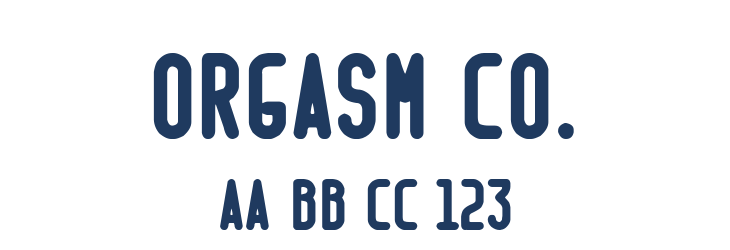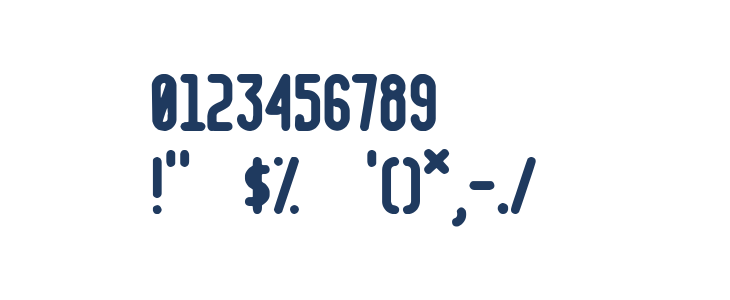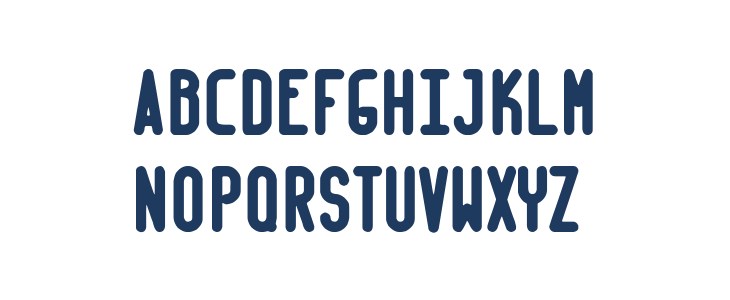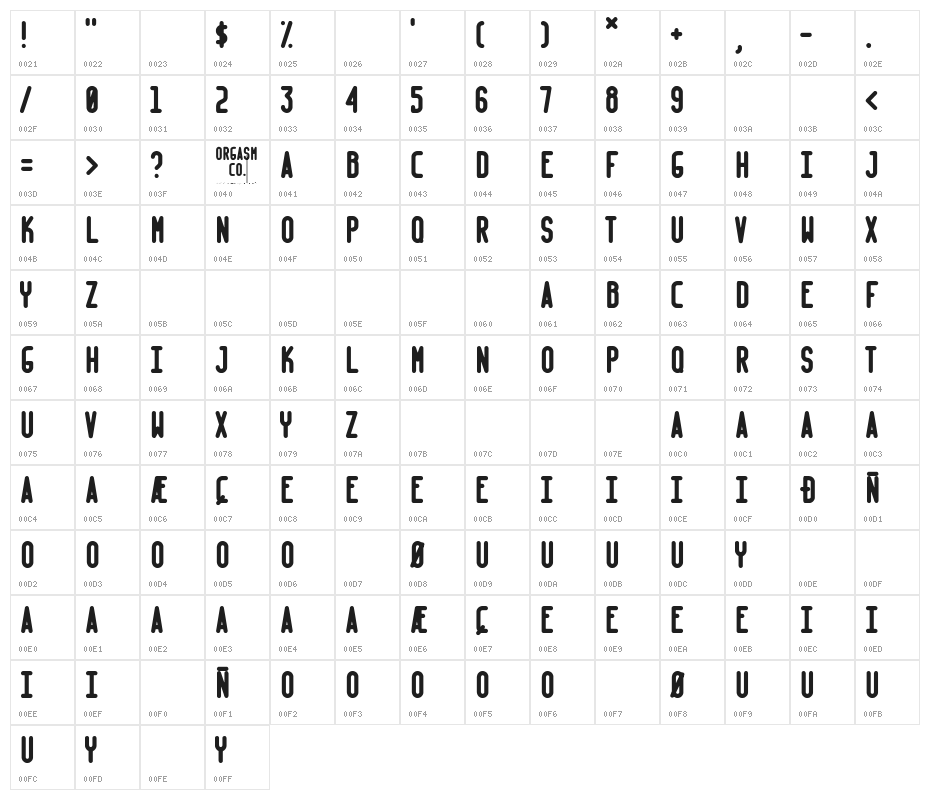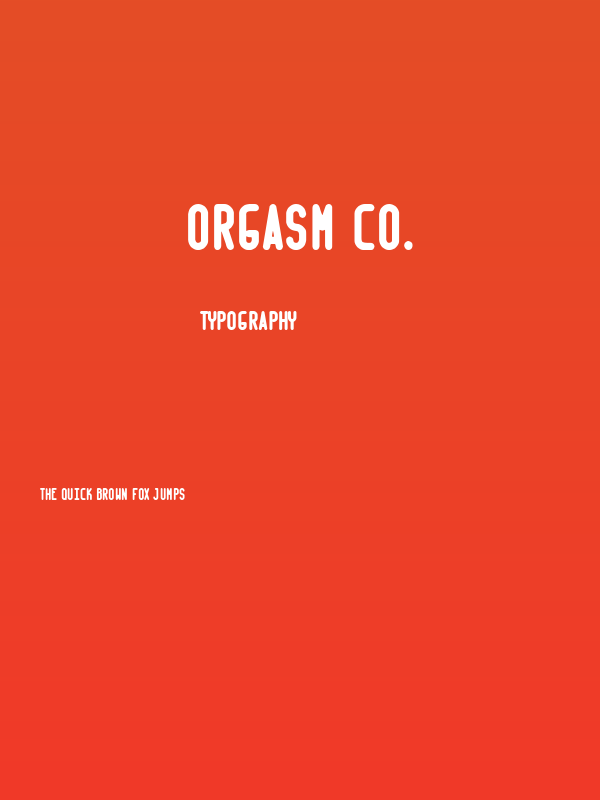
Orgasm Co. Font
Orgasm Co. Description
A rounded, bold sans-serif typeface with uniform stroke width, geometric shapes, and playful, approachable character forms. The letters have soft corners and consistent proportions, giving a friendly and modern appearance.
| Overall Style | Modern, Playful, Decorative |
| Use Case | Headlines, Logos, Posters, Packaging |
| Proposed Projects | Children's books, posters, branding for casual or fun products, packaging, signage, social media graphics. |